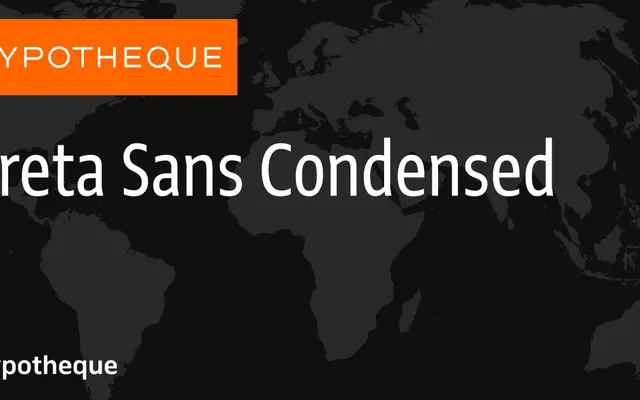
Greta Sans Condensed
Typotheque
A condensed cut within Typotheque's wide-ranging Greta Sans system, offering ten weights with matching italics for demanding editorial and identity work.
Part of the Greta Sans system, one of Typotheque's most extensive type families, the Condensed variant spans ten weights from Hairline to Black, each with a corresponding italic. The full system also includes Compressed, Extended and Variable subfamilies, giving designers precise control over width and weight across complex typographic hierarchies. Its use in identity work such as the Musée de la Chasse et de la Nature points to its credibility beyond the newspaper context for which Greta was originally conceived.
Greta Sans Condensed is part of a large humanist sans-serif system with multiple width variants; the condensed cut retains the humanist warmth of the parent family in a narrower proportion suited to tight editorial settings.